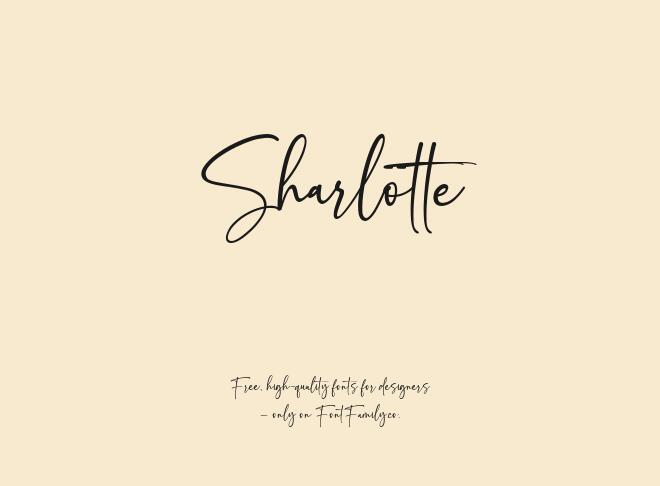
Sharlotte Font
Sharlotte Font is a modern and elegant handwritten script font that offers a beautiful and attractive aesthetic in any design context. With its smooth, flowing letterforms, Sharlotte Font stands out as a perfect choice for branding, logos, wedding invitations, social media posts, and any design that requires a touch of charm and elegance. Compared to other fonts, Sharlotte Font delivers a personal touch, making your design feel more intimate and engaging. It's a great choice for designers who want to add a touch of sophistication and style to their projects. Sharlotte Font is a free font for personal use, making it a cost-effective choice for those looking to enhance their design work without breaking the bank.